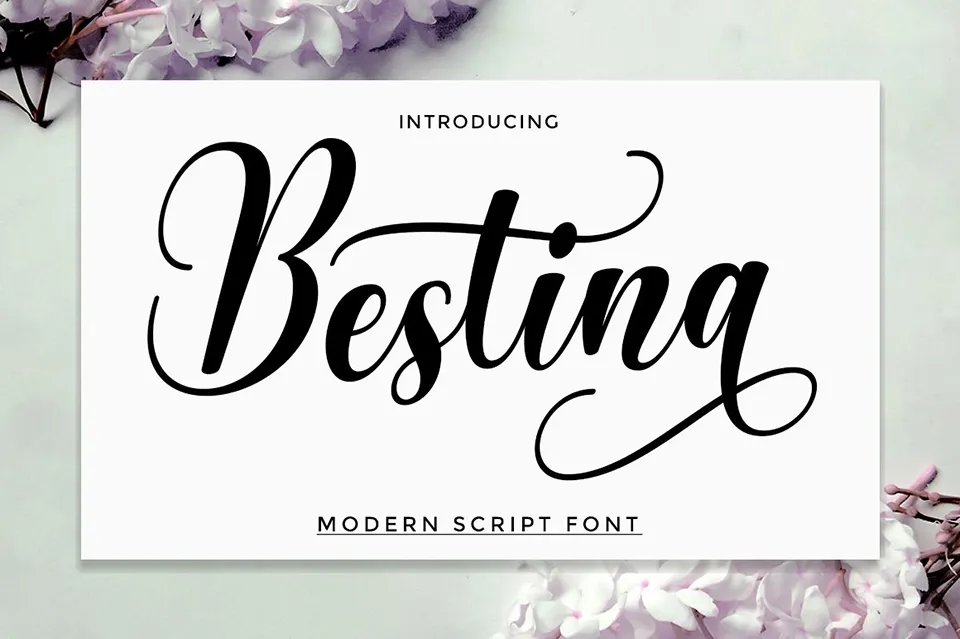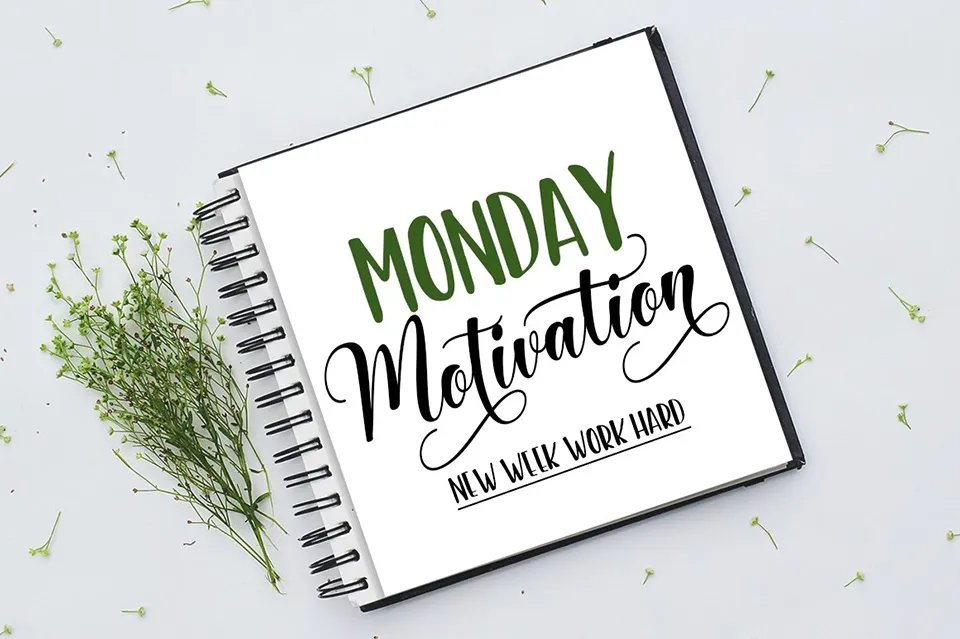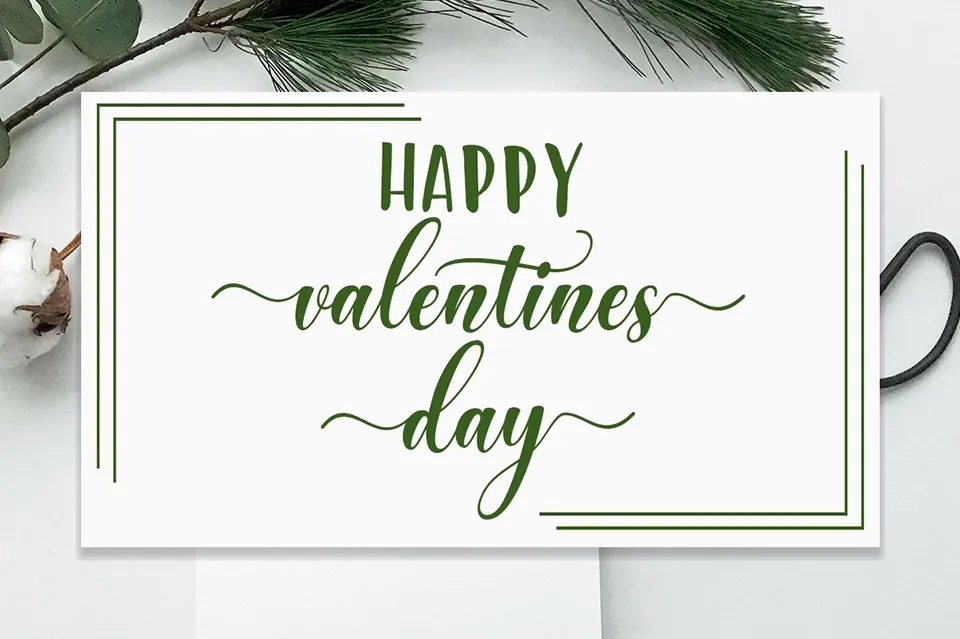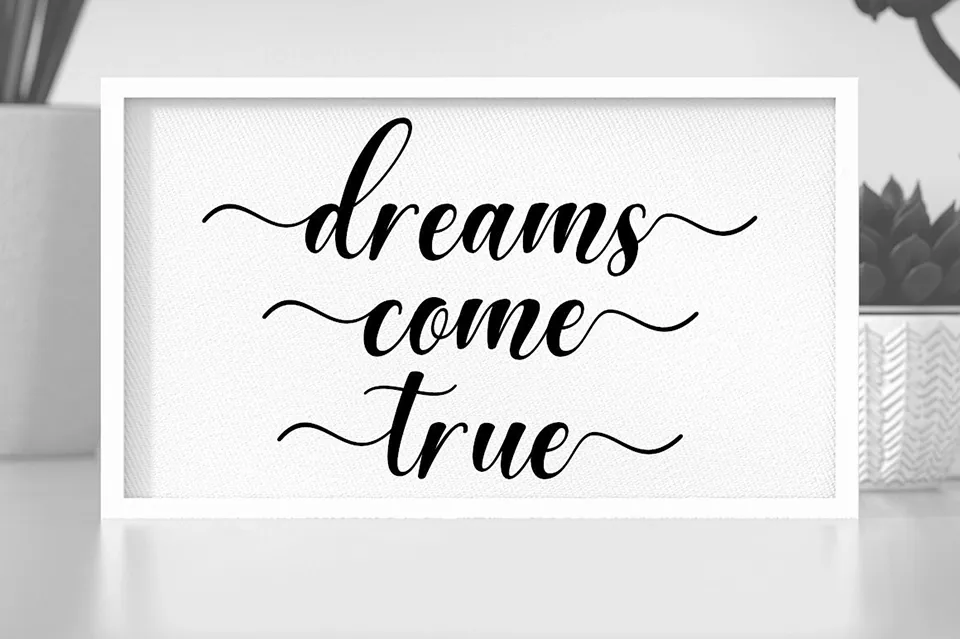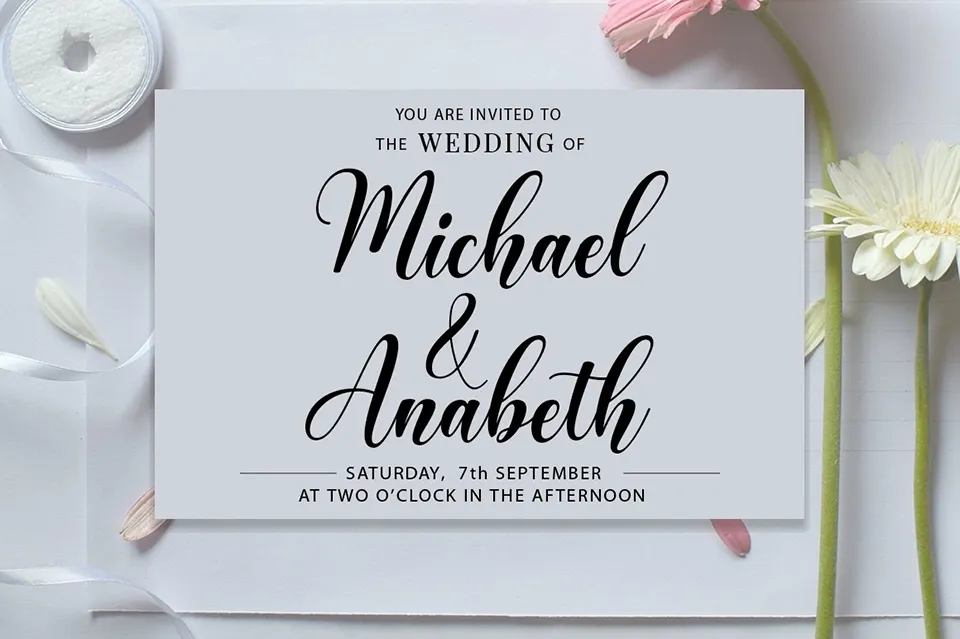
Bestina Font
Bestina Font is a stunning modern script font that exudes elegance and charm. With its flowing, handcrafted letterforms and graceful curves, Bestina is perfect for adding a touch of sophistication to any design project. This versatile typeface is ideal for wedding invitations, branding, logos, greeting cards, and other creative works that require a personal and stylish touch. Its smooth, connected strokes and decorative swashes make it both visually appealing and highly readable. Whether you’re designing for formal occasions or looking to create a luxurious aesthetic, Bestina delivers beauty and refinement in every detail, making your designs stand out effortlessly.